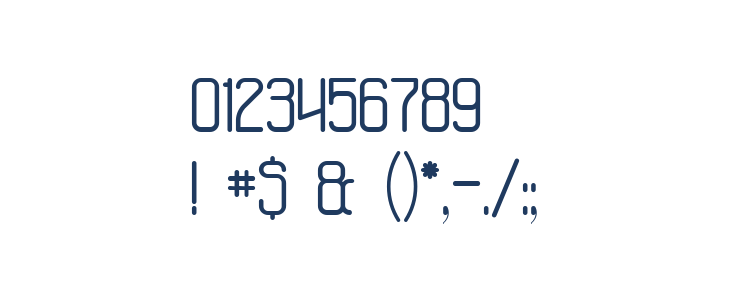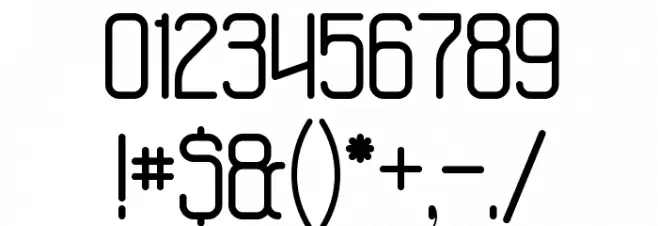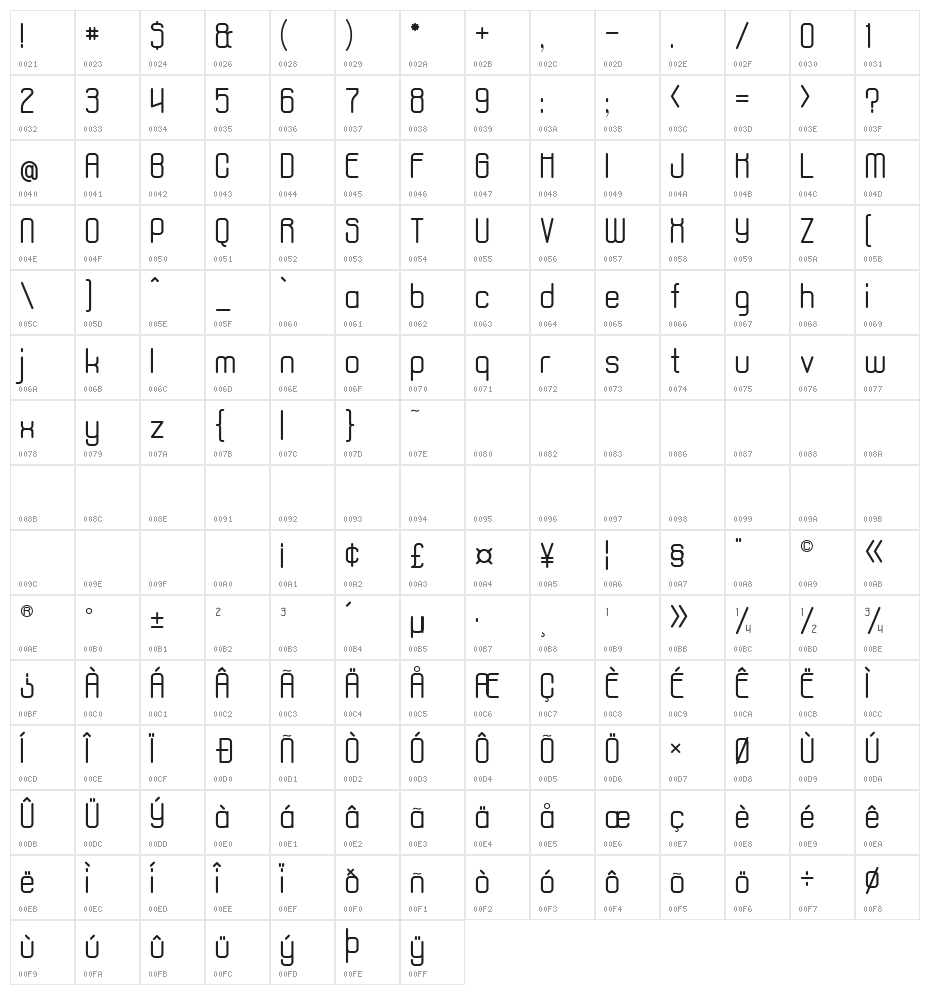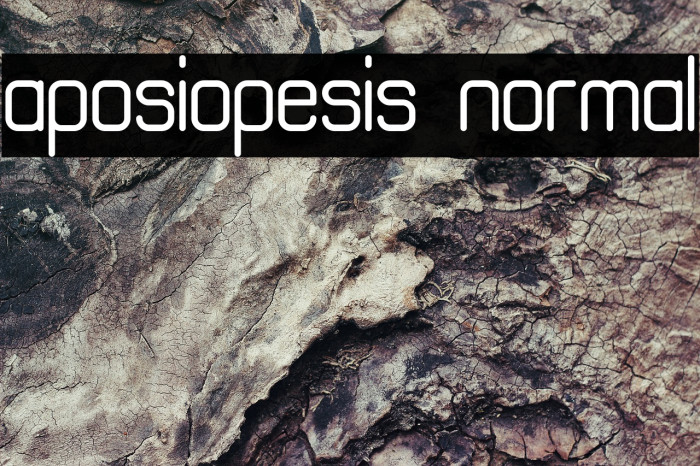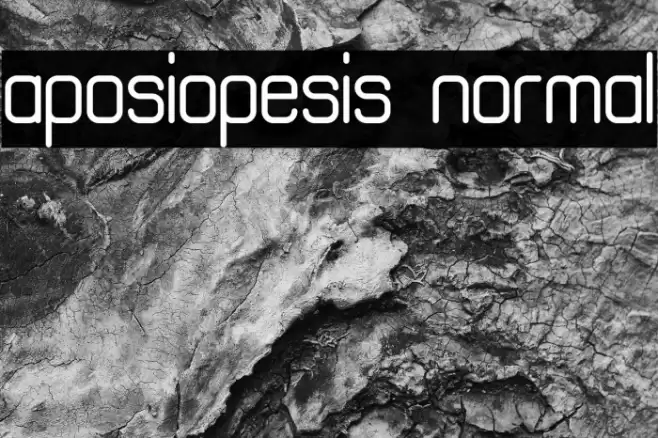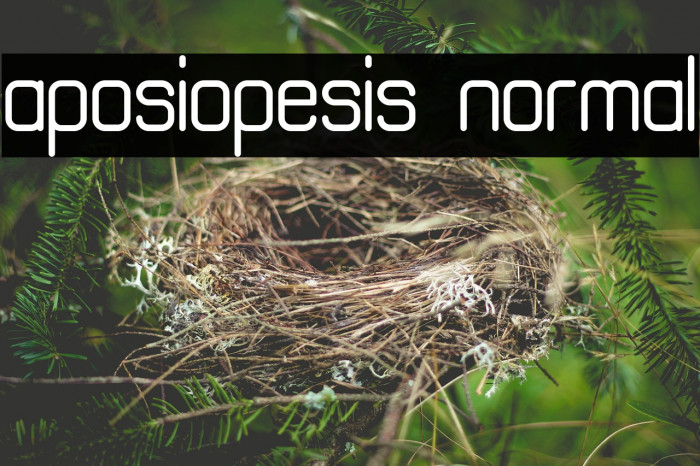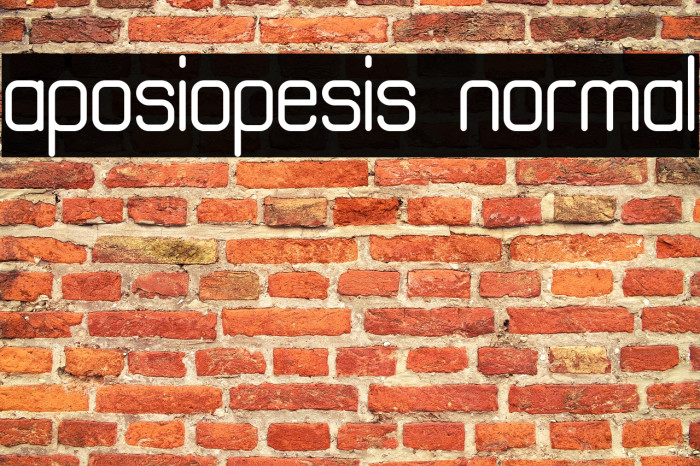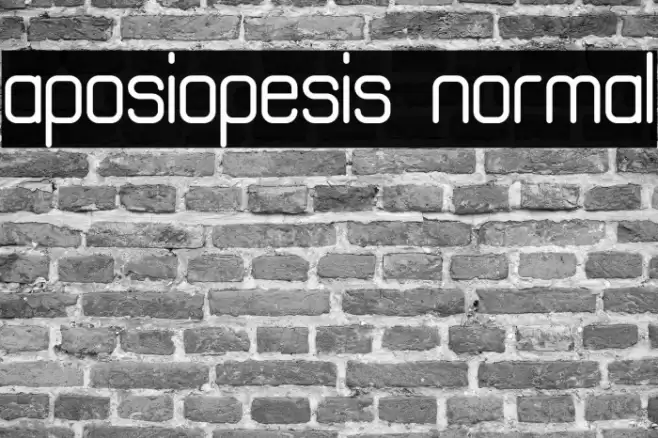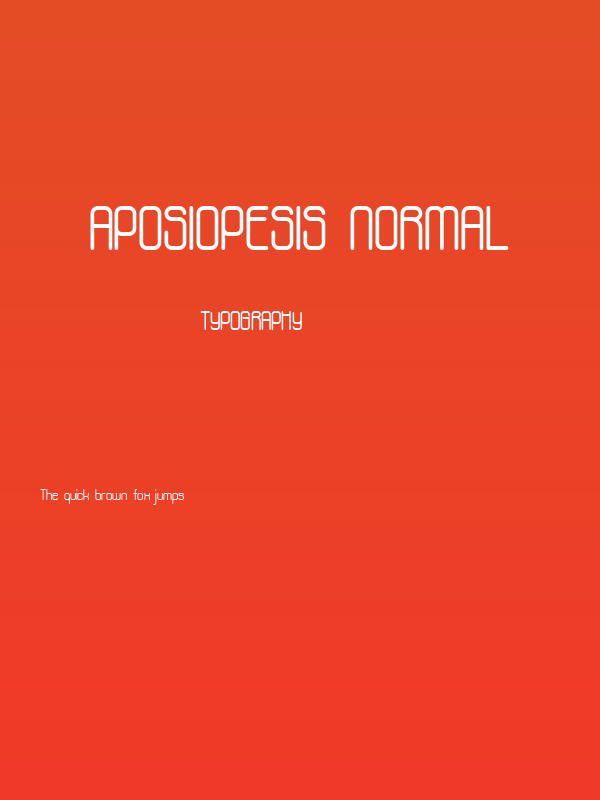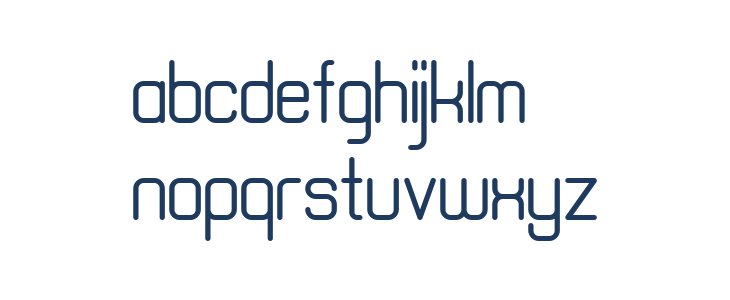
aposiopesis normal Font
aposiopesis normal Description
This font features a modern, geometric design with rounded edges and a clean, minimalist aesthetic. The characters are uniform in width, giving it a monospaced appearance, though it is not strictly monospaced. The uppercase and lowercase letters share a consistent height, contributing to a harmonious and balanced look. The numerals and special characters maintain the same design principles, ensuring a cohesive overall style. The font's simplicity and clarity make it highly legible, even at smaller sizes, while its unique character shapes add a touch of personality.
| Proposed Projects | Ideal for tech branding, modern web design, digital interfaces, and minimalist posters. |